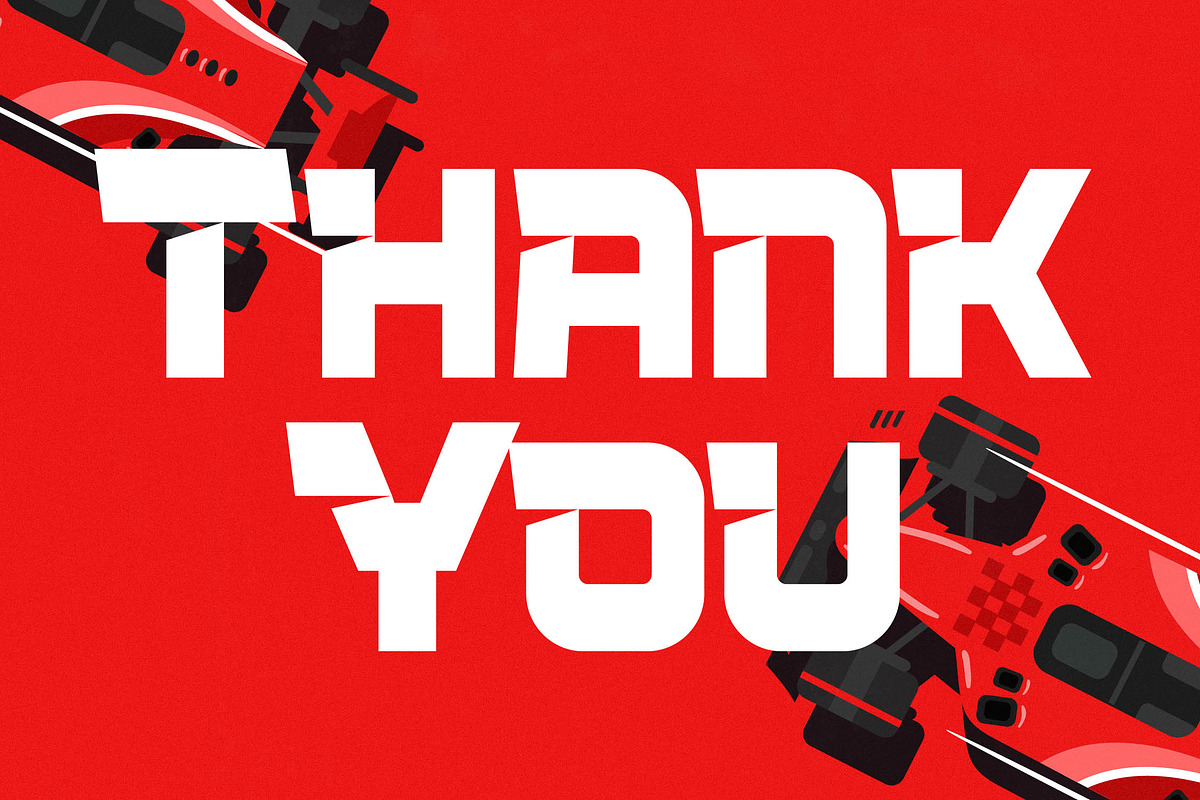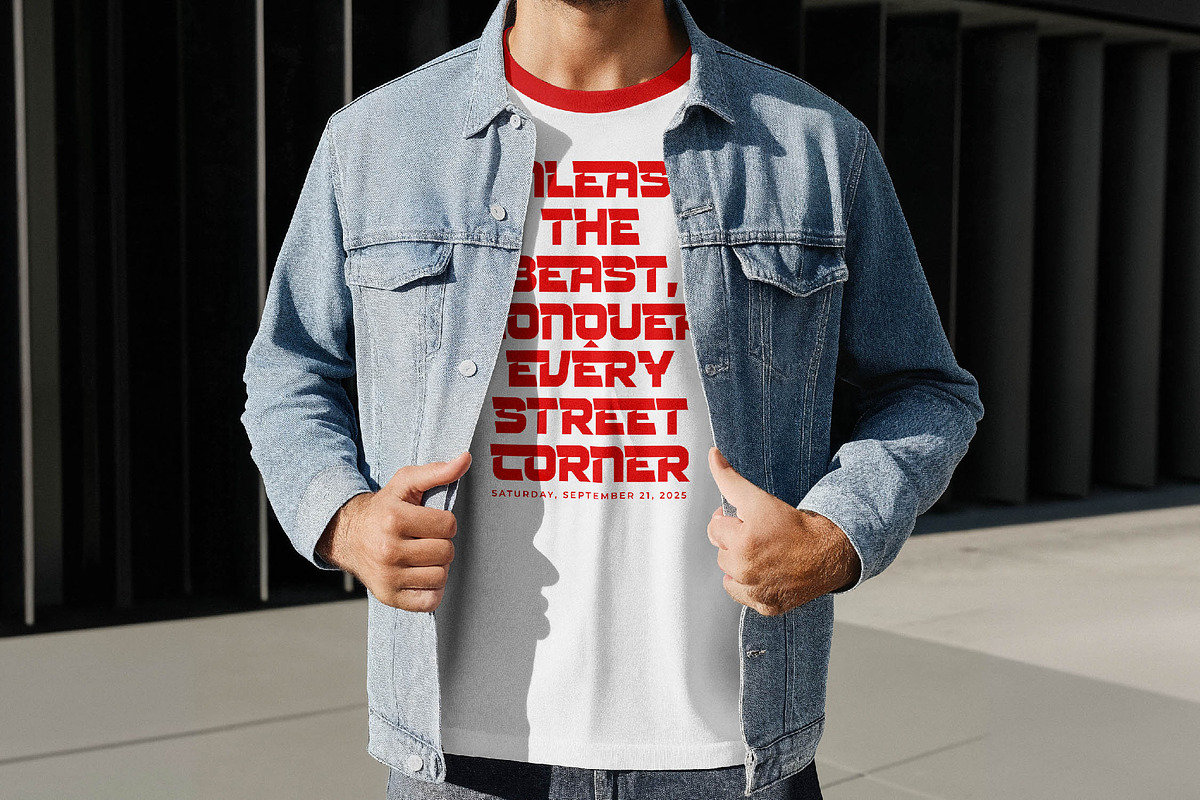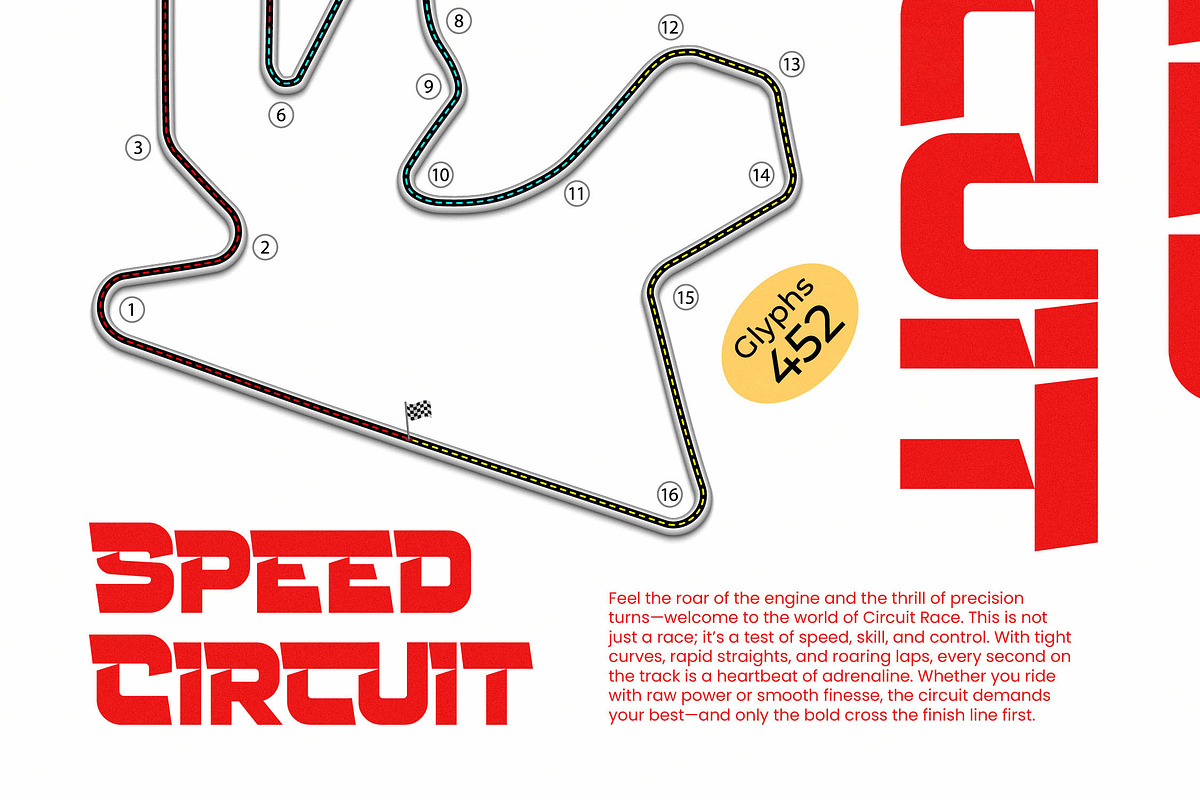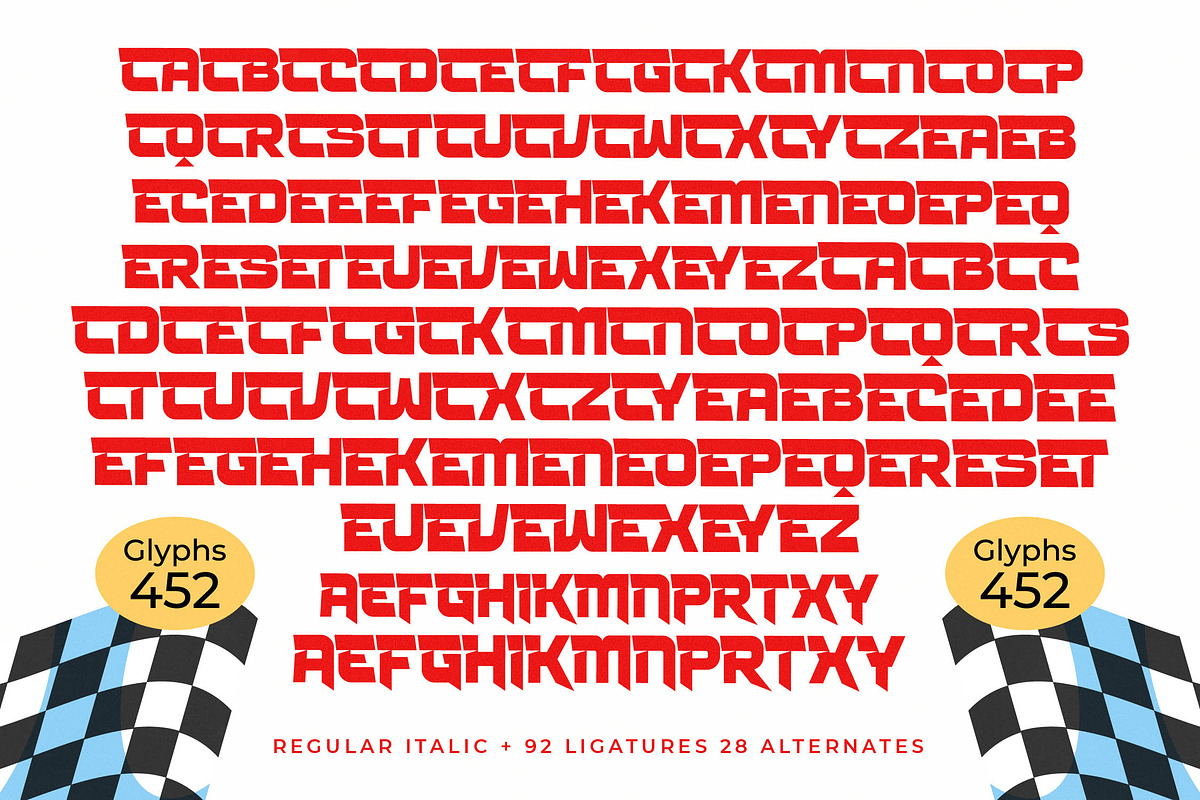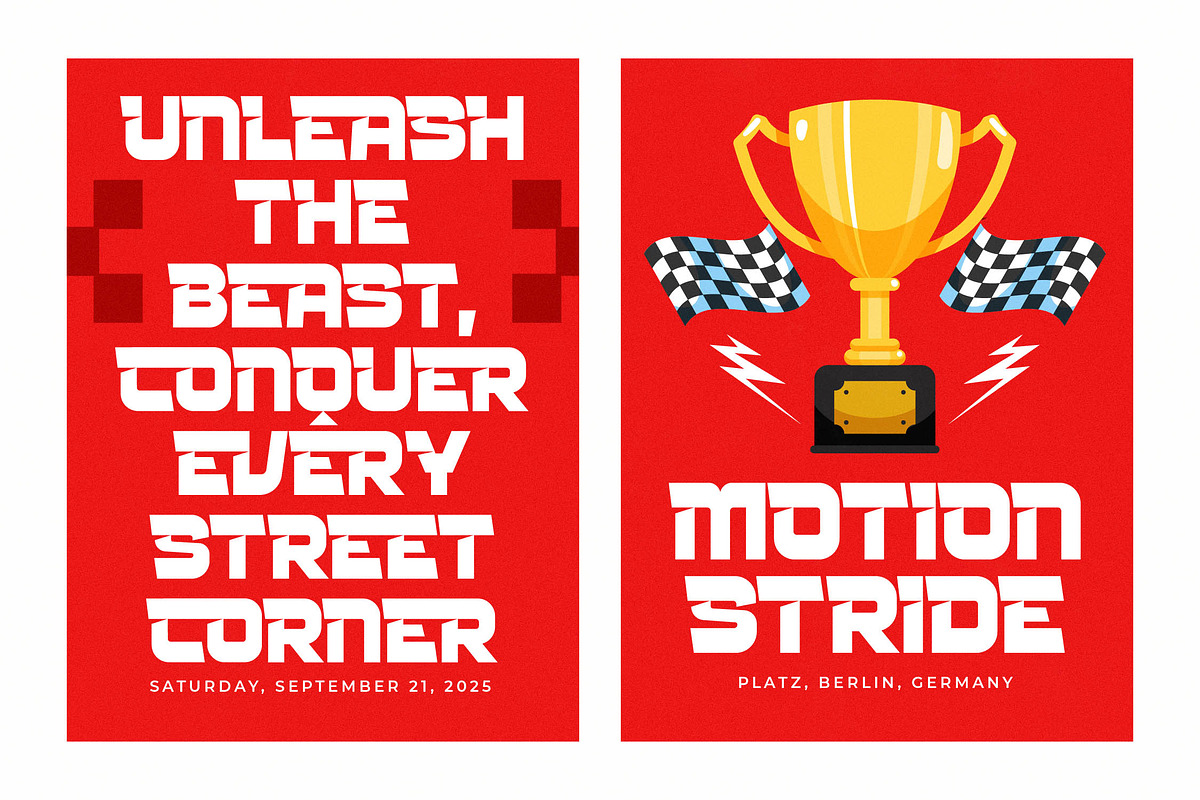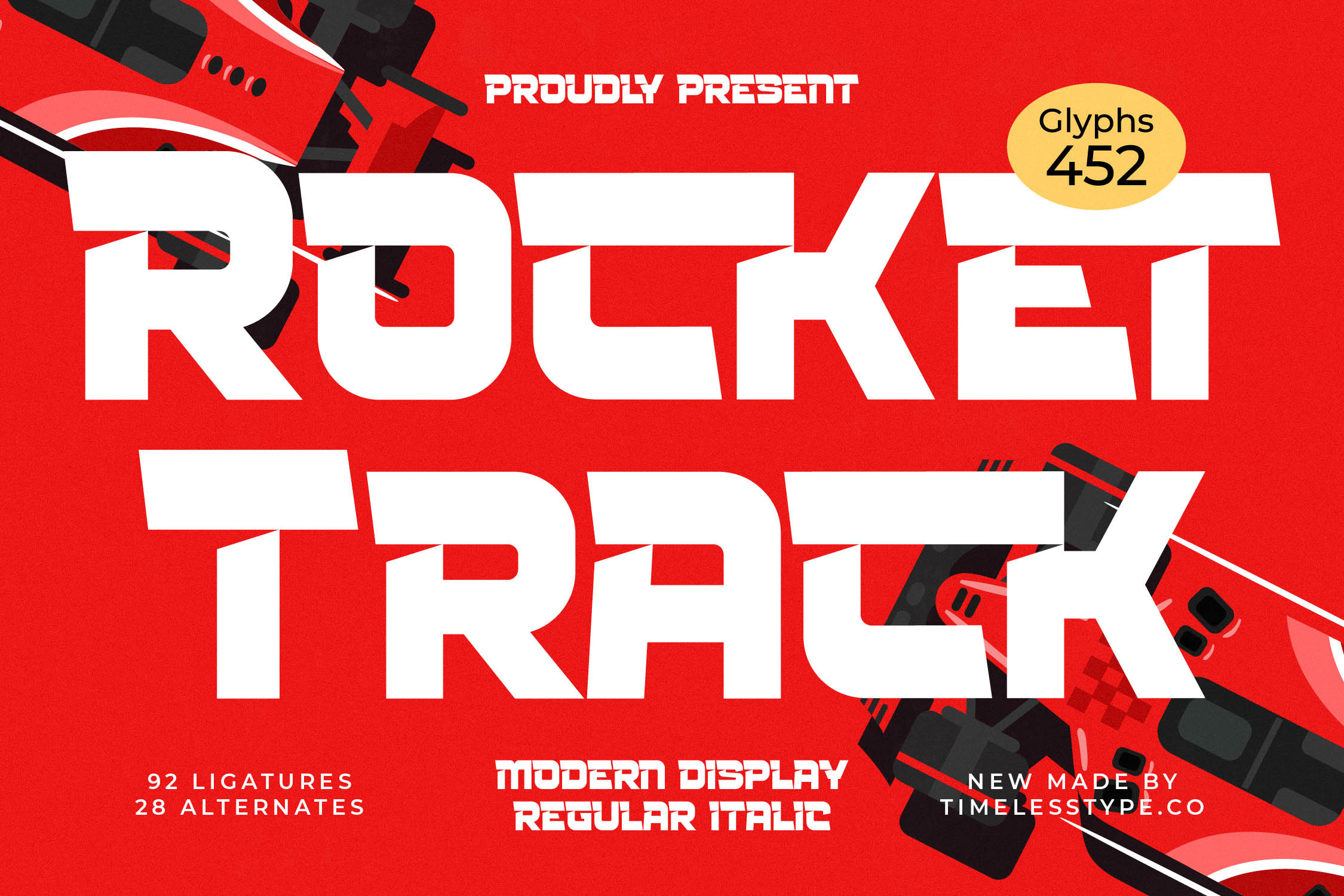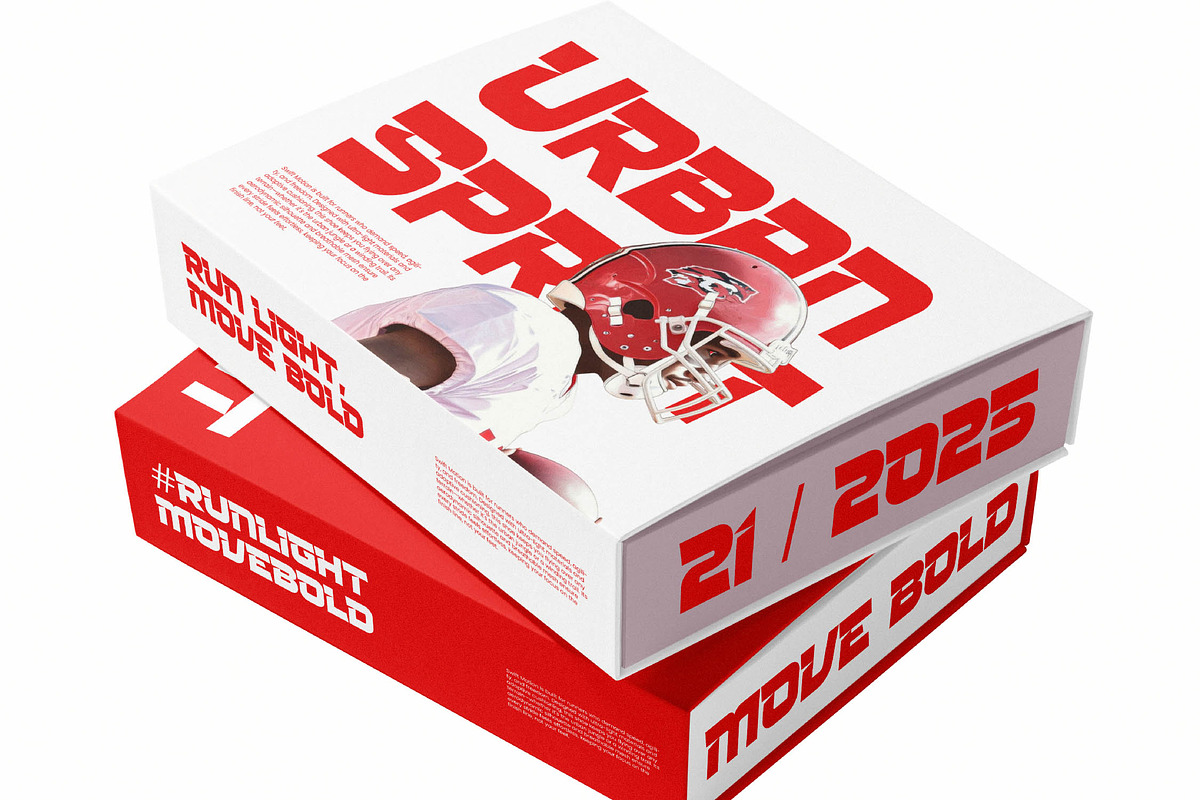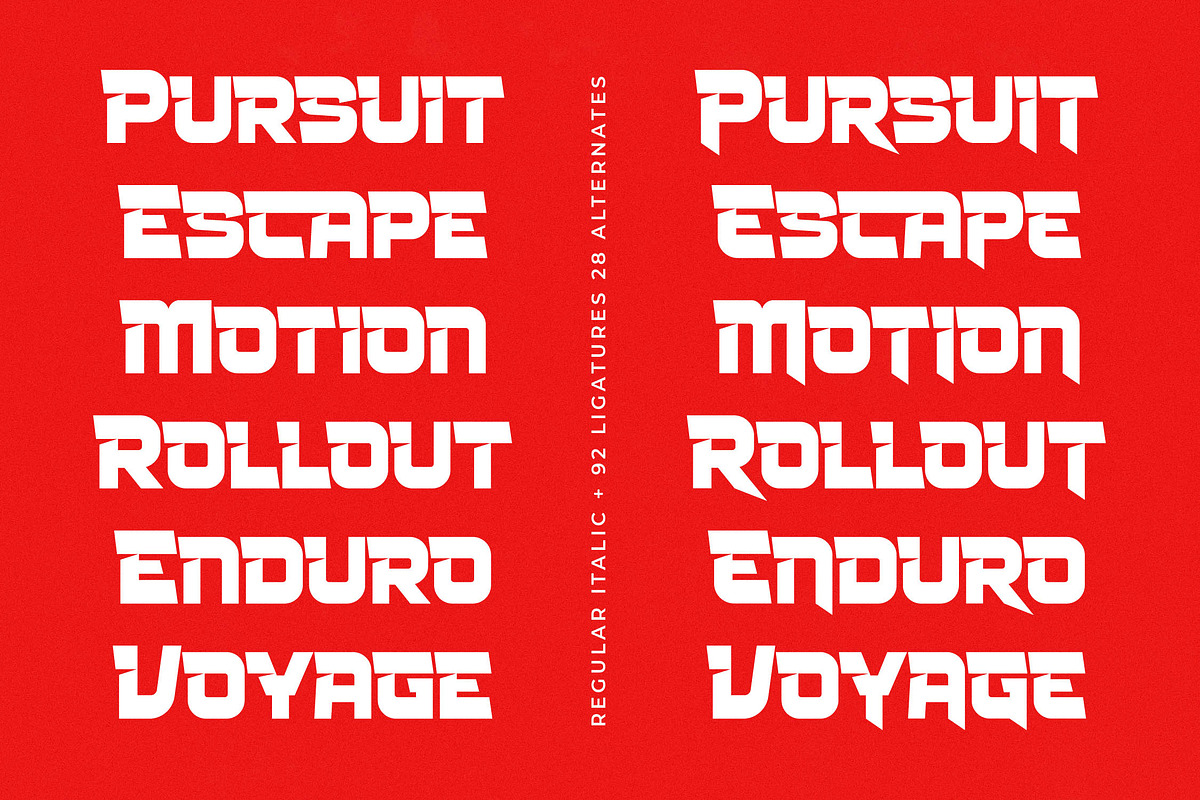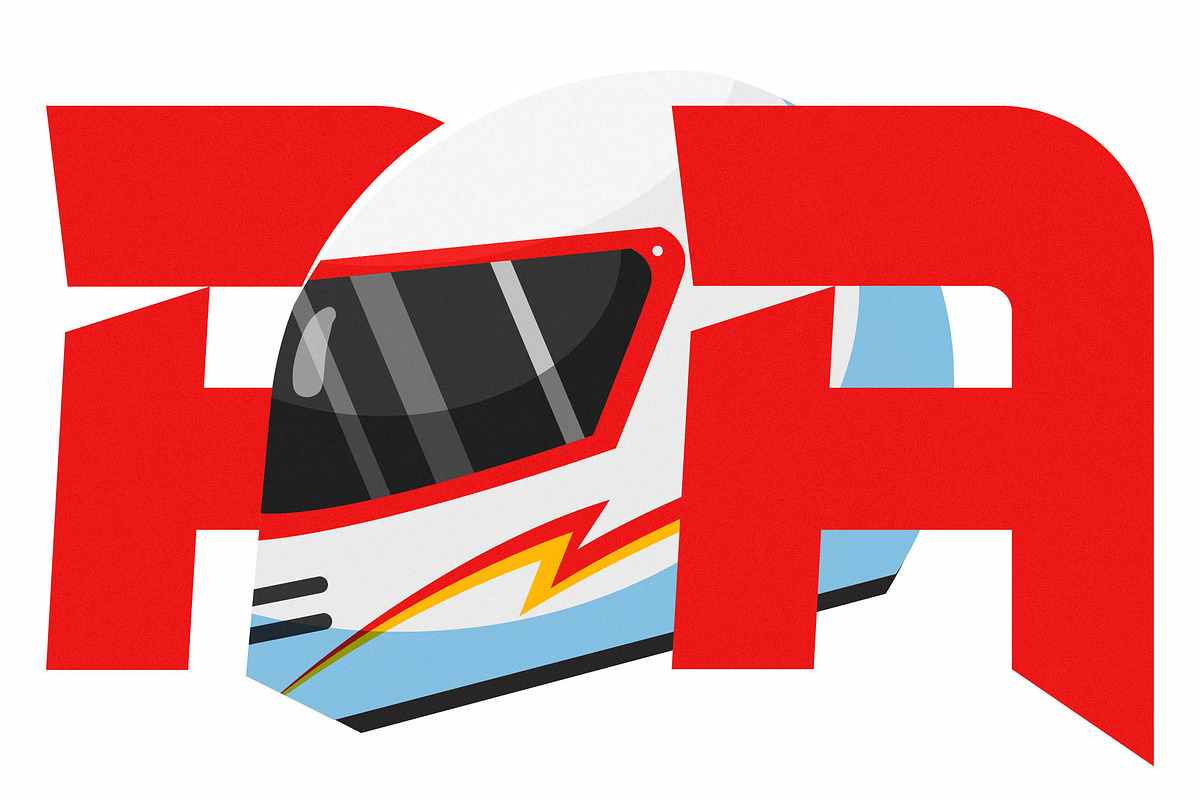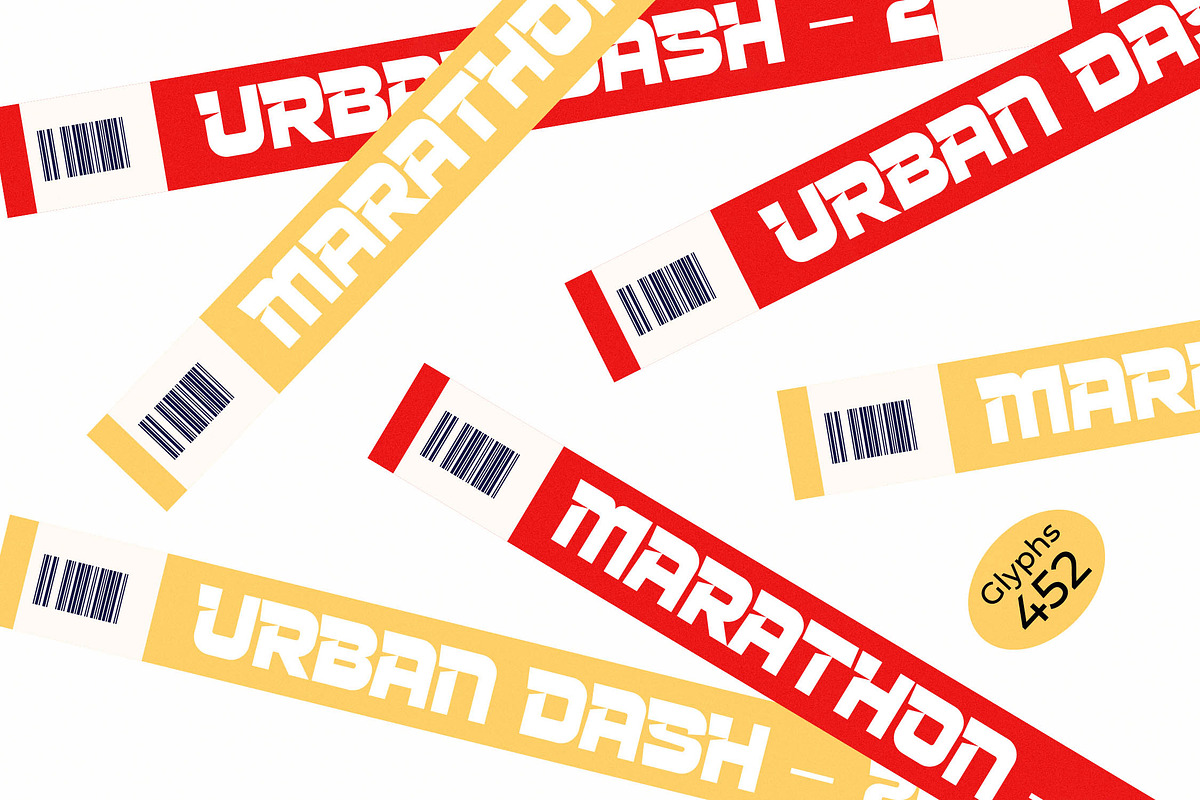
Rocket Track Modern Racing Font
Ignite your creative engine with Rocket Track, a powerhouse display typeface designed for maximum velocity and visual impact. This font isn't just about reading; it's about experiencing the thrill of the race and the precision of modern engineering.
Inspired by the aerodynamic curves of high-speed racing cars and the sharp angles of futuristic spacecraft, this typeface captures the essence of motion. Every glyph is meticulously crafted to lean into the future, offering a sense of forward momentum that is both aggressive and elegant.
Rocket Track delivers a commanding presence with its modern display structure, designed specifically for branding impact and luxury typography within the tech and sports sectors. It functions as a high-contrast display font that demands attention, making it the perfect choice for an editorial font seeking a bold, unconventional edge.
Tapping into the current modern display trend, this typeface aligns perfectly with the shift toward character-driven typography and editorial display fonts. It fills the gap for designers seeking a balance between mechanical precision and artistic expression, ensuring your projects remain at the forefront of contemporary design aesthetics.
This versatile typeface excels in high-stakes environments like logo design, branding, and packaging for energy drinks or automotive products. While its heart is in sports, its clean lines also suit editorial layouts for tech magazines, futuristic fashion campaigns, and even high-concept wedding invitations for modern couples.
Packed with a massive library of 452 glyphs, this font includes 92 ligatures and 28 alternates to give your designs a custom-lettered feel. It provides full multilingual support for international characters, ensuring your message reaches a global audience without losing its distinctive sharp-edged personality.
- Ligature 92 Alternate 28